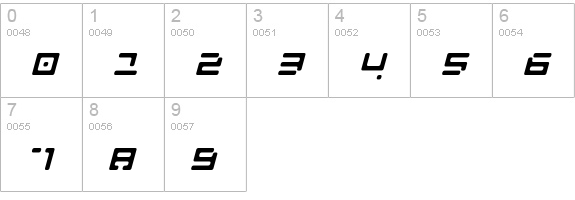
LuggageRoundBrokenOblique Font Details
LuggageRoundBrokenOblique font is a unique and eye-catching typeface that combines a round and broken design with an oblique slant, giving it a distinctive and modern look. This font is perfect for adding a touch of creativity and edginess to your design projects. Its playful yet bold appearance makes it ideal for a variety of purposes, from branding to packaging and everything in between. The best part is that LuggageRoundBrokenOblique font is completely free to download at FontsMarket.com. You can easily add this versatile font to your collection without any cost, making it a valuable asset for any designer looking to stand out from the crowd. Don't miss out on the opportunity to enhance your projects with this stylish and dynamic font today!